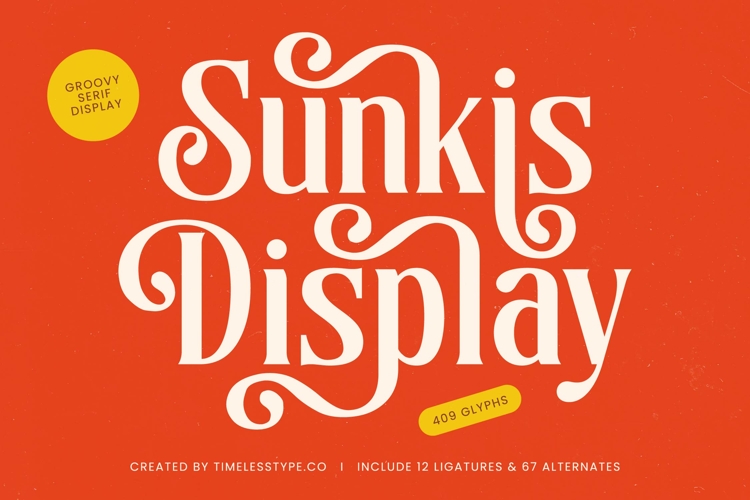
Sunkis Display - Groovy Serif Display Font
Unlock unparalleled design potential with Sunkis Display - Groovy Serif Display Font, a captivating high-contrast display serif that effortlessly marries vintage charm with modern sophistication. Its distinctively playful curves and bold serifs create an immediate visual impact, establishing a memorable presence for any creative endeavor. This font is meticulously crafted to convey both elegance and a spirited personality, setting your designs apart.
Experience boundless creative freedom thanks to the rich selection of 409 glyphs, including 12 ligatures and 67 alternates. These extensive stylistic options empower designers to craft truly unique logos, striking headlines, and visually stunning editorial layouts. Whether aiming for a retro vibe or a contemporary statement, Sunkis Display - Groovy Serif Display Font offers the versatility needed to bring your boldest ideas to life.
With its extensive multilingual support, Sunkis Display - Groovy Serif Display Font adapts seamlessly across global markets, making it incredibly versatile for international projects. This comprehensive language coverage ensures that your brand message maintains its distinctive character and professional appeal no matter the audience or region, fostering a truly global design reach.